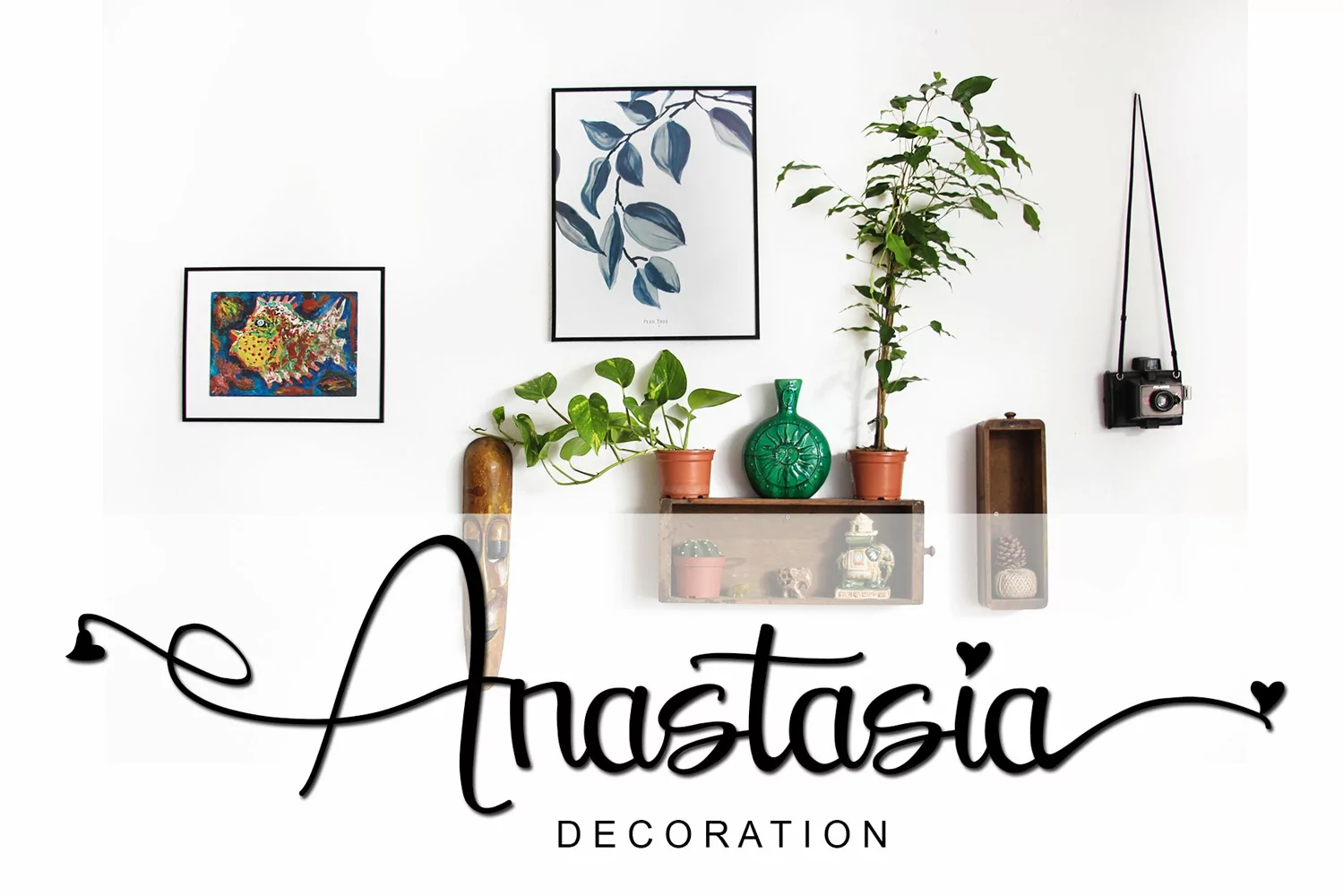
CHRISTMAS BEST FONT
Christmas Winter is a modern handwritten font by Letterafa. It has flowing letters that will give your designs a unique and sweet look. Christmas Winter is perfect; greeting cards, a package design, a brand identity, craft design, any DIY project, book title, wedding invitation, packaging, and more.